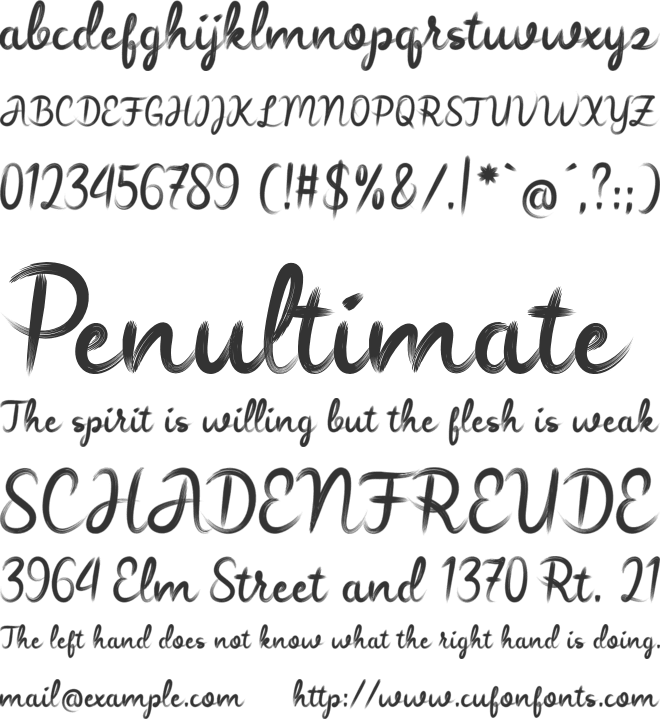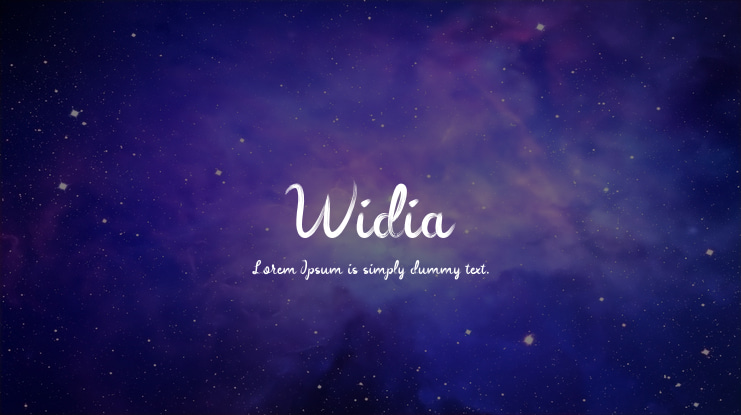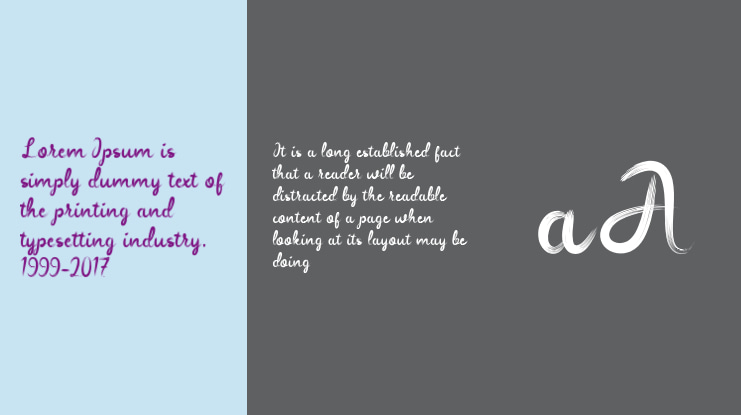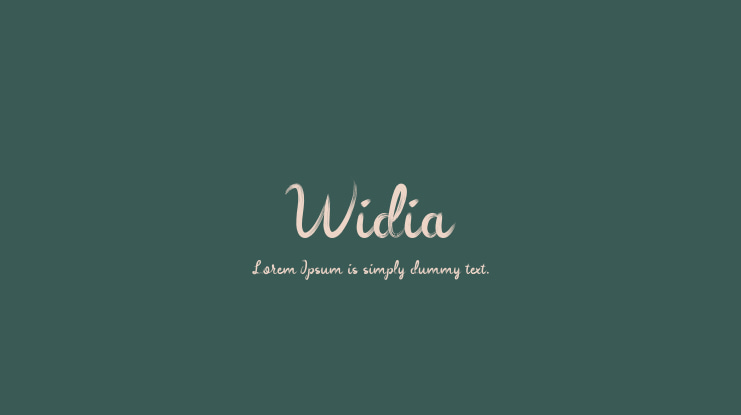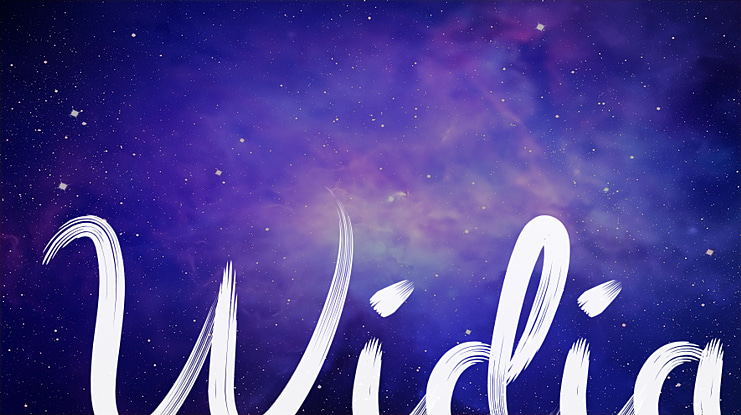
Widia Font Family
Widia hand brush is a script in a new, modern, handmade calligraphy, with decorative characters, suitable for invitations, greeting cards, branding materials, business cards, quotes, posters, and more.Commercial licensing is available at www.myfonts.com/fonts/bbb-key/widia-hand-brush/ (https://www.myfonts.com/fonts/bbb-key/widia-hand-brush/)